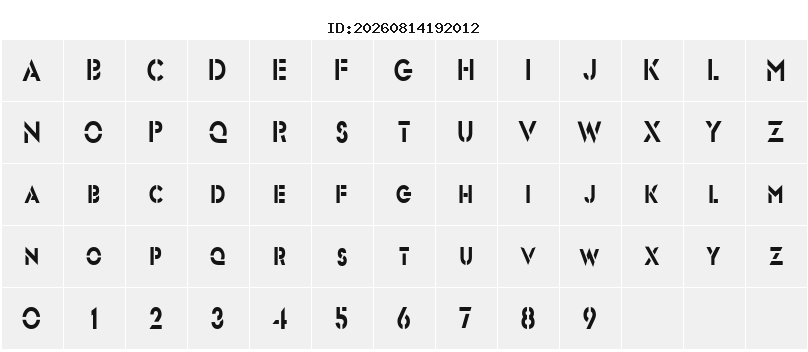
Stencil Sans-Condensed Preview
About Stencil Sans-Condensed.ttf
Stencil Sans-Condensed.ttf is a modern, elegant sans-serif font designed for ultimate readability and visual harmony. Perfect for branding, headlines, web design, and print materials.